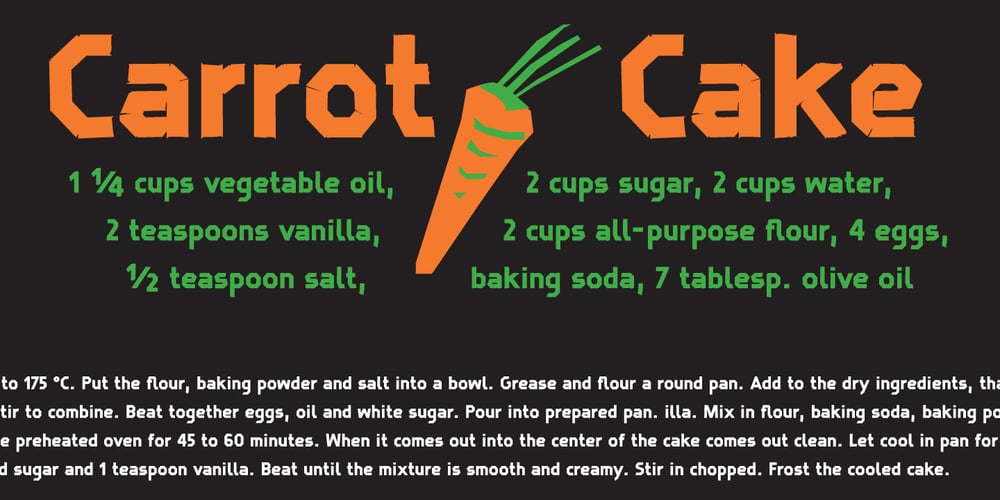
JohnTape
JohnTape font
JohnTape Font Family was designed by Georg John and published by Georg John. JohnTape contains 6 styles and family package options. Stick on in two styles: An accurately glued tape-font and a more rough version – mostly used for smaller fontsizes. You get both together – additionally in this bundle there are “Overlap”-Layer fonts for a more realistic tape look. Due to its exact shapes and spacing also suitable for smaller fontsizes and long texts. Includes an extended character set, variants for double basic latin letters (turn on opentype feature “Ligatures”), cyrillic, greek letters, some symbols and arrows.